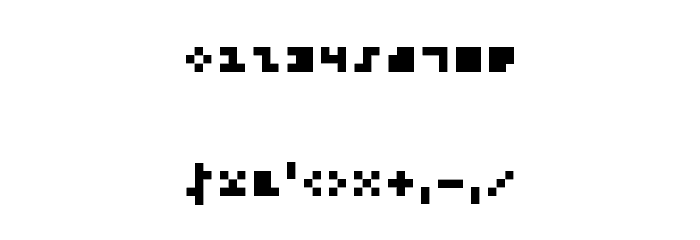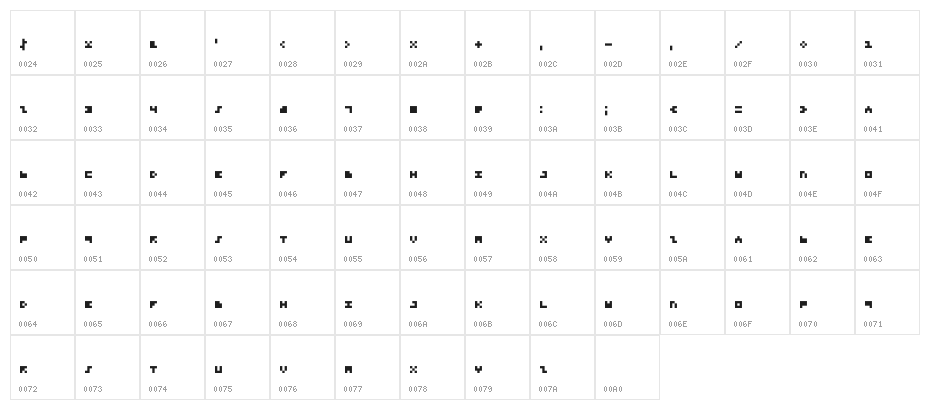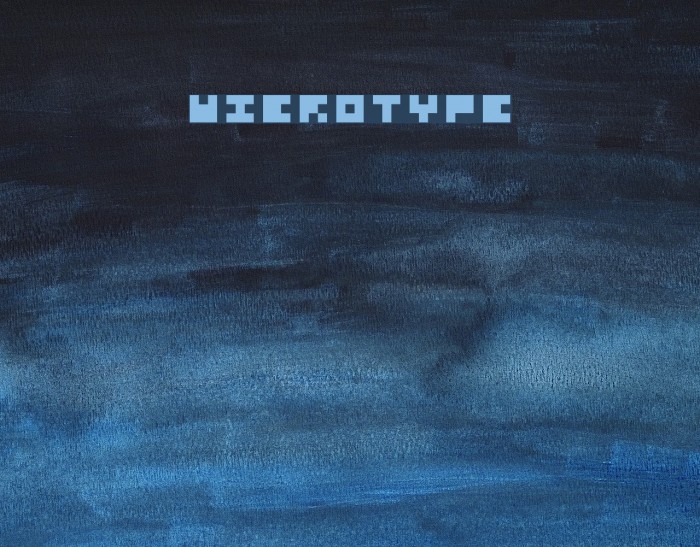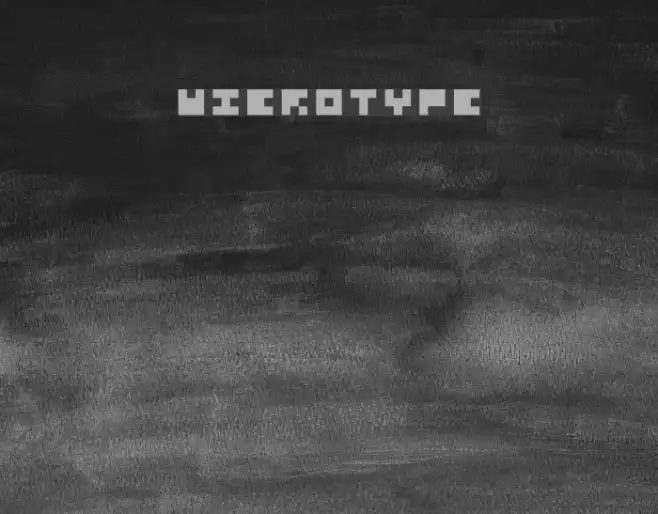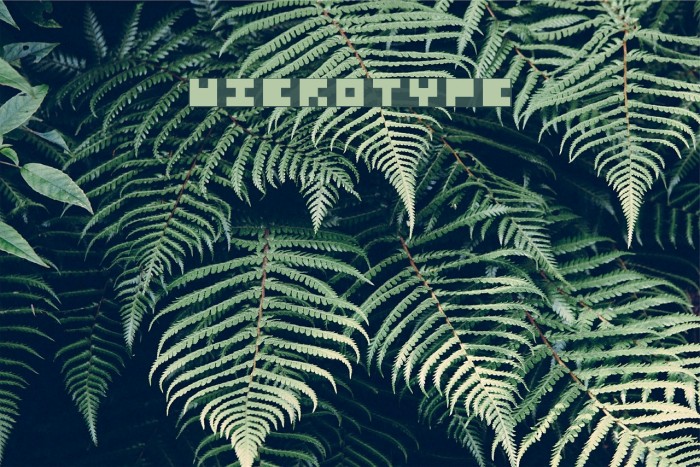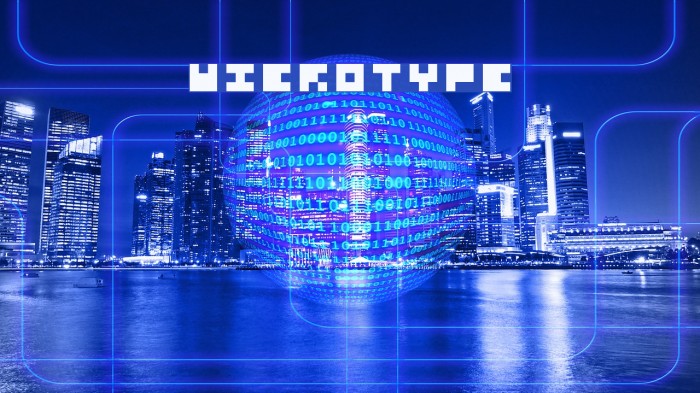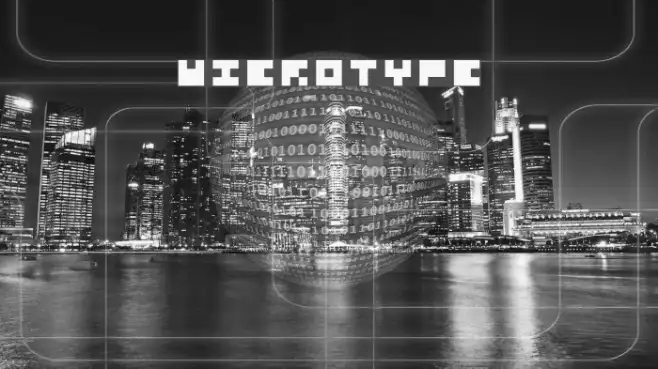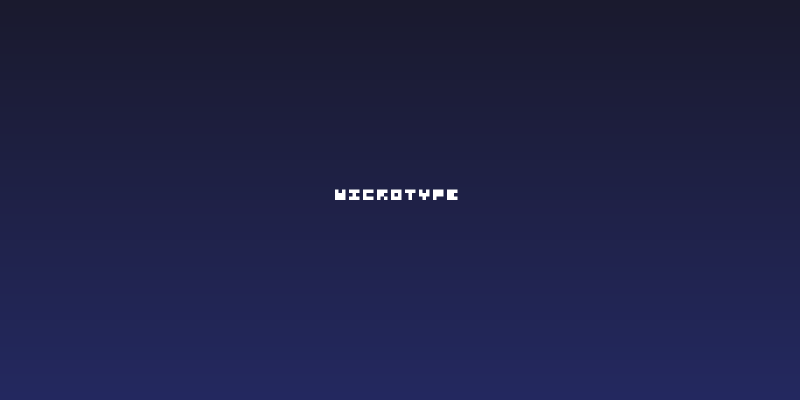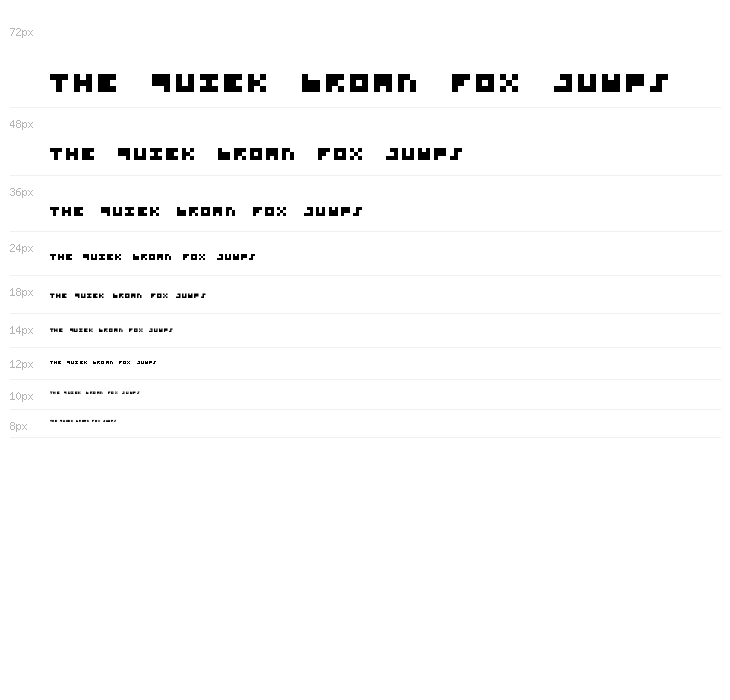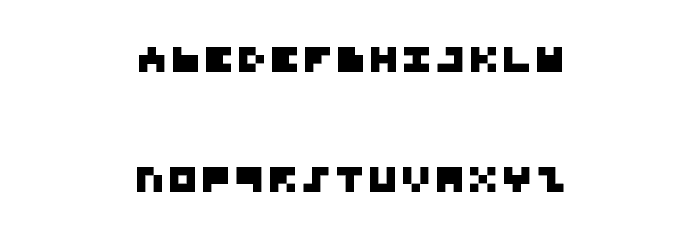
Microtype Font
Microtype Description
This font exhibits a bold, pixelated style reminiscent of early digital or arcade game typography. Each character is constructed with a blocky, geometric form, giving it a distinctly retro and technological appearance. The uniformity in height and width across characters contributes to a cohesive and structured look, while the absence of curves and the presence of sharp angles enhance its digital aesthetic. This font is highly legible in short bursts, making it ideal for capturing attention. Its unique style is both nostalgic and modern, appealing to those looking to evoke a sense of vintage computing or gaming culture.
Overall StyleRetro, Digital
Proposed ProjectsIdeal for video game design, tech-themed posters, retro branding, and digital art projects.